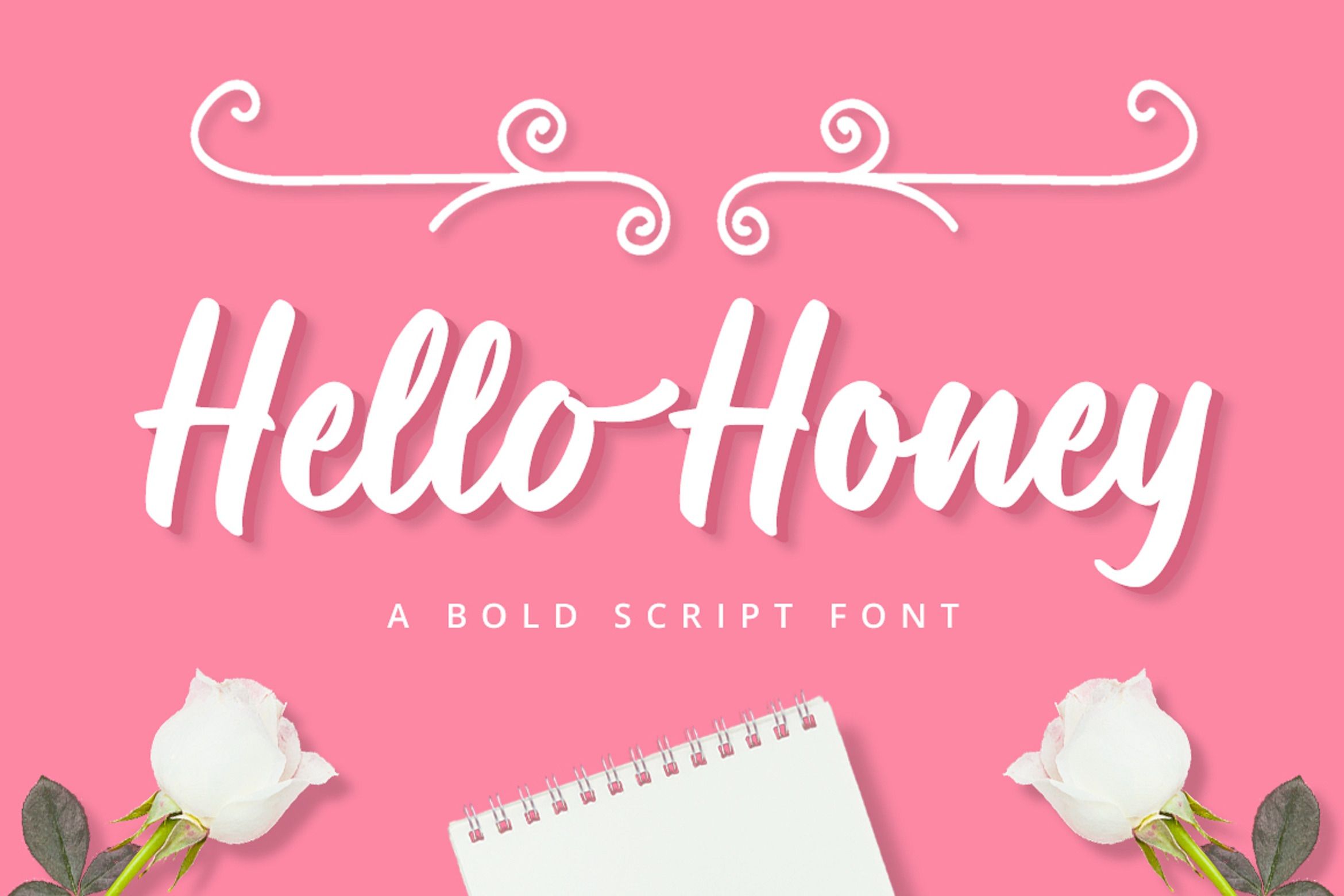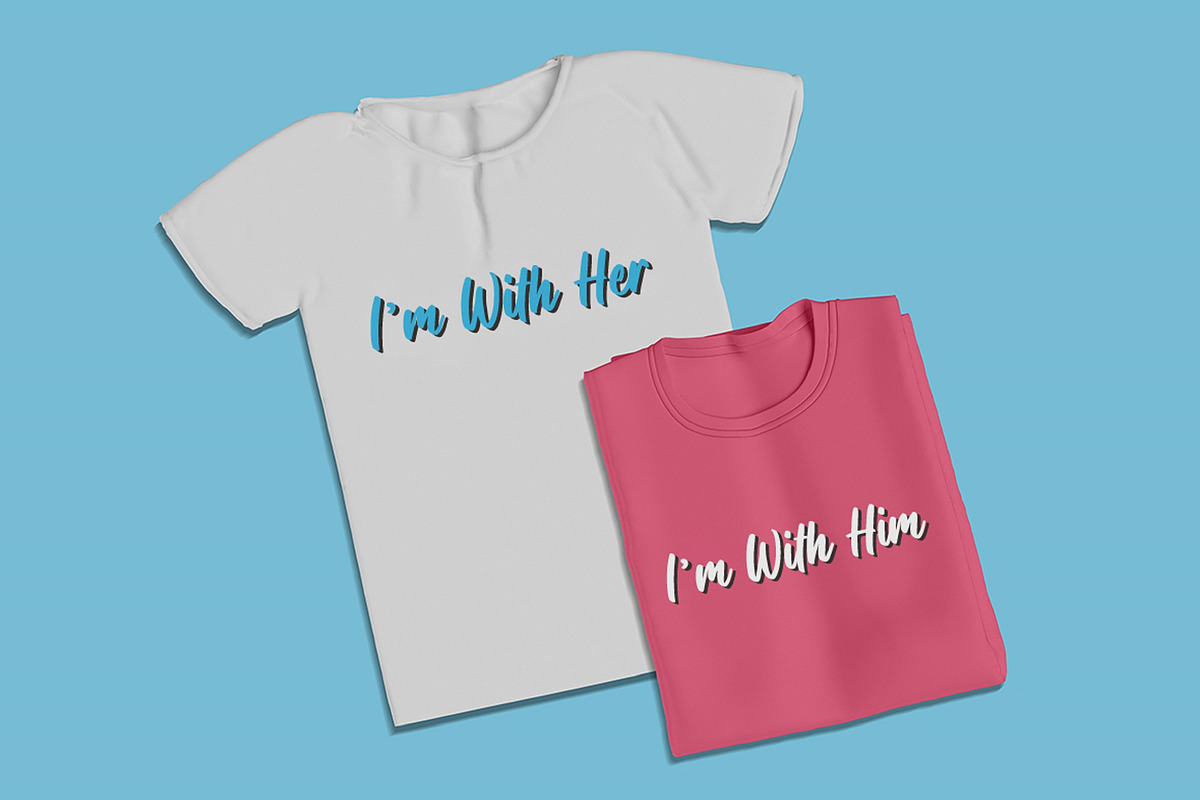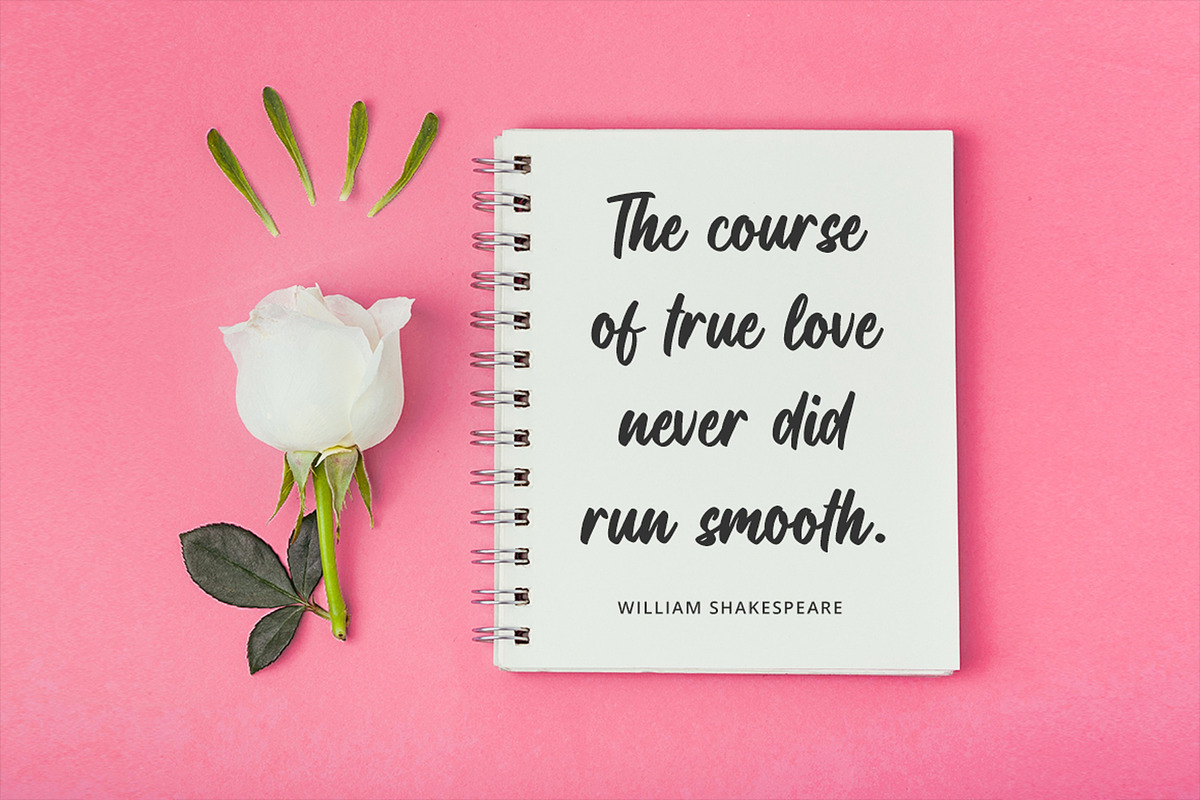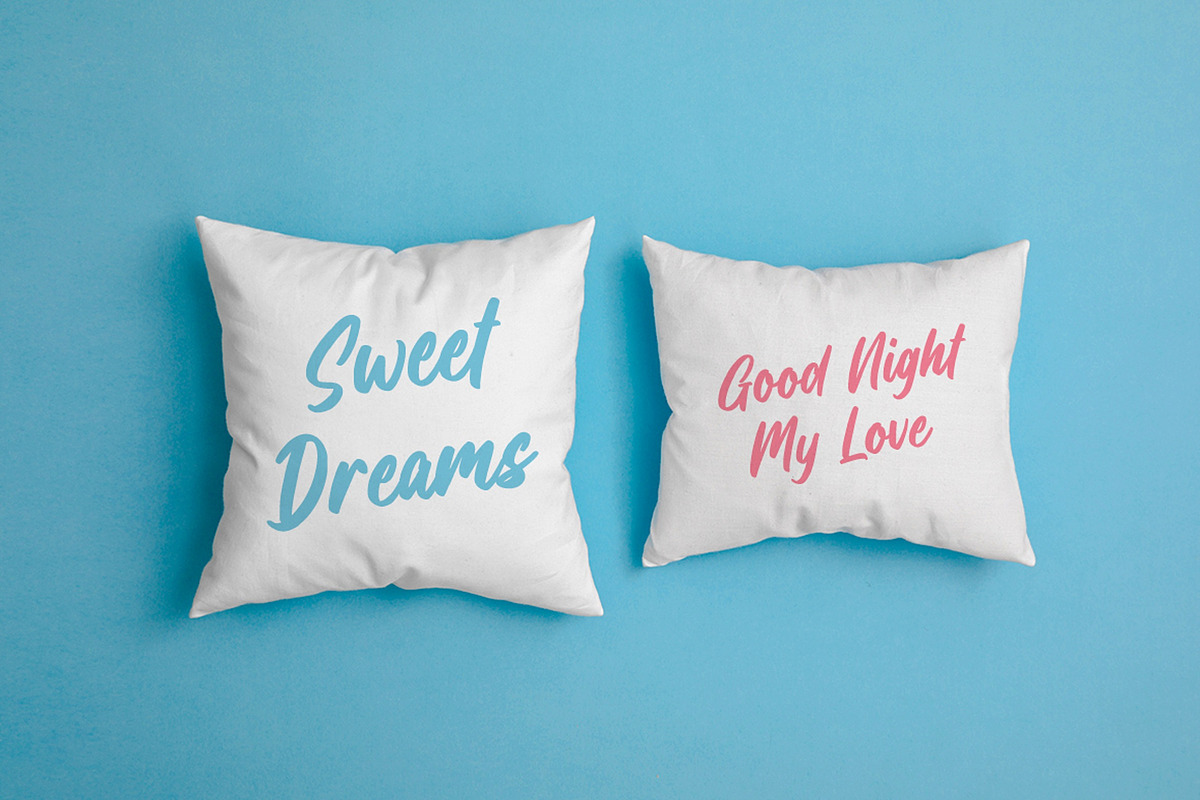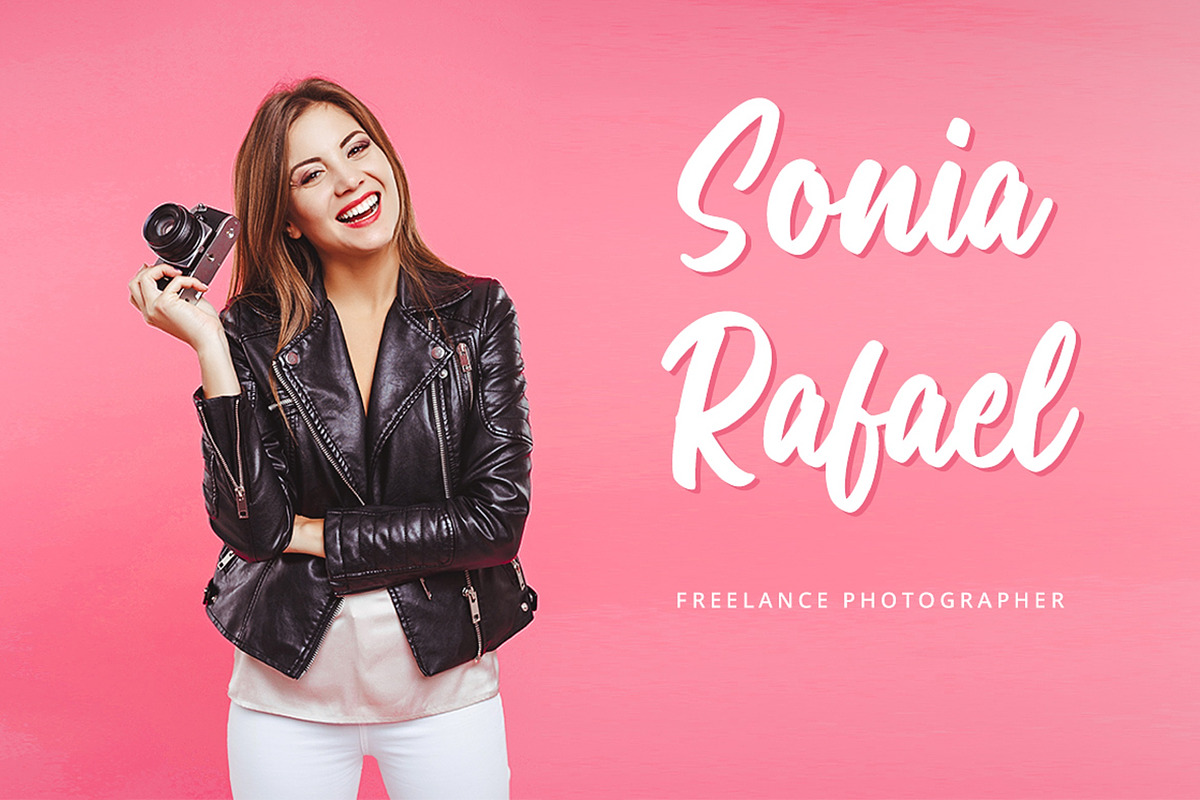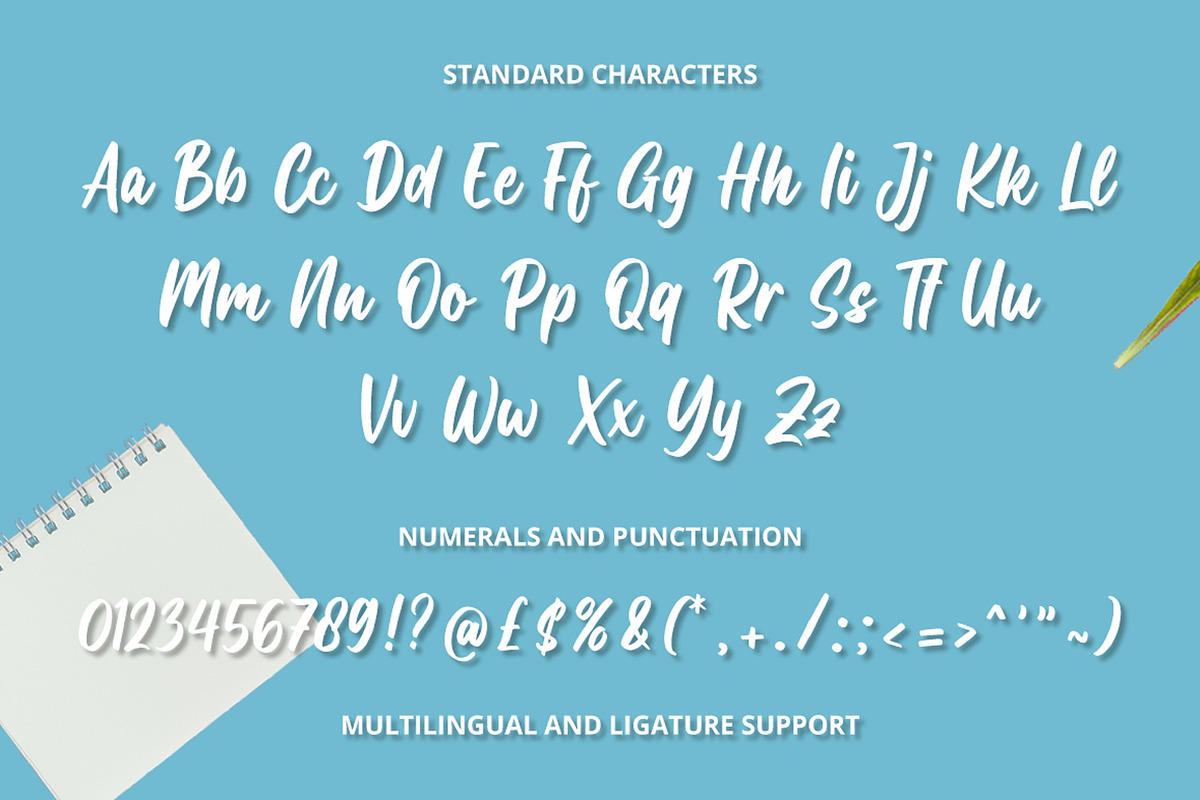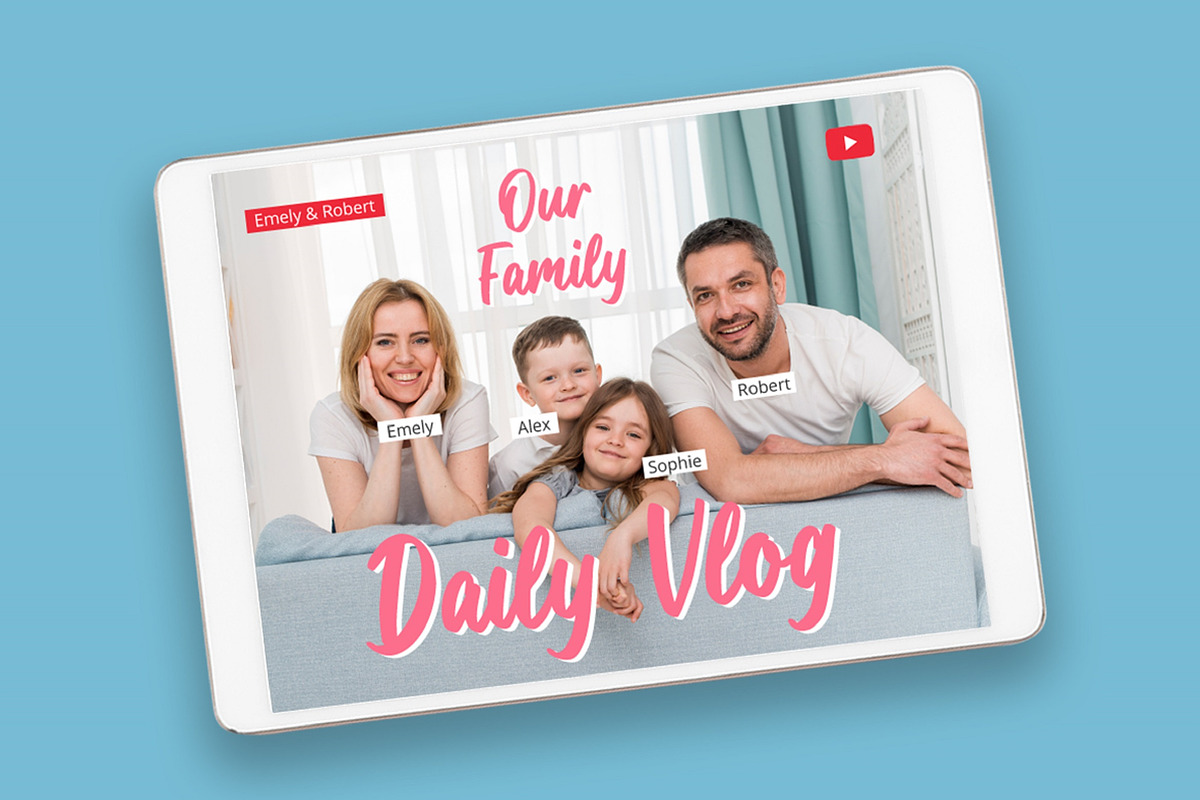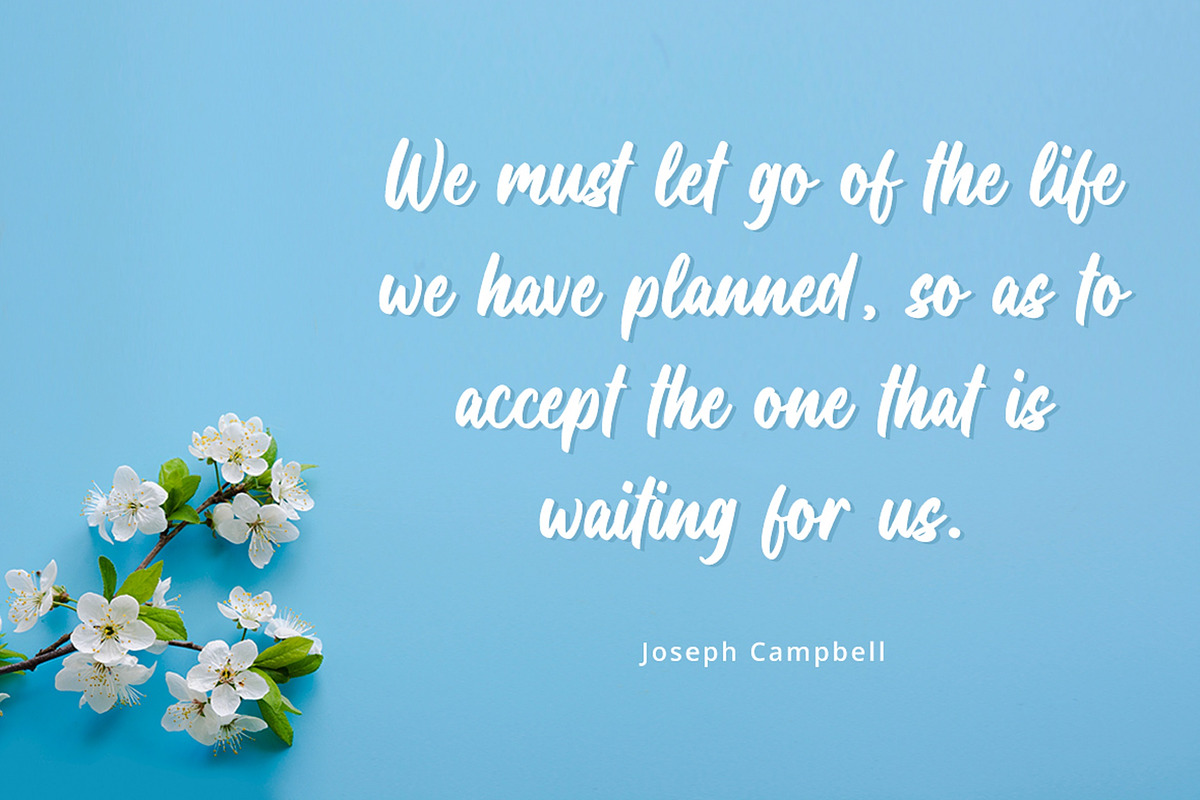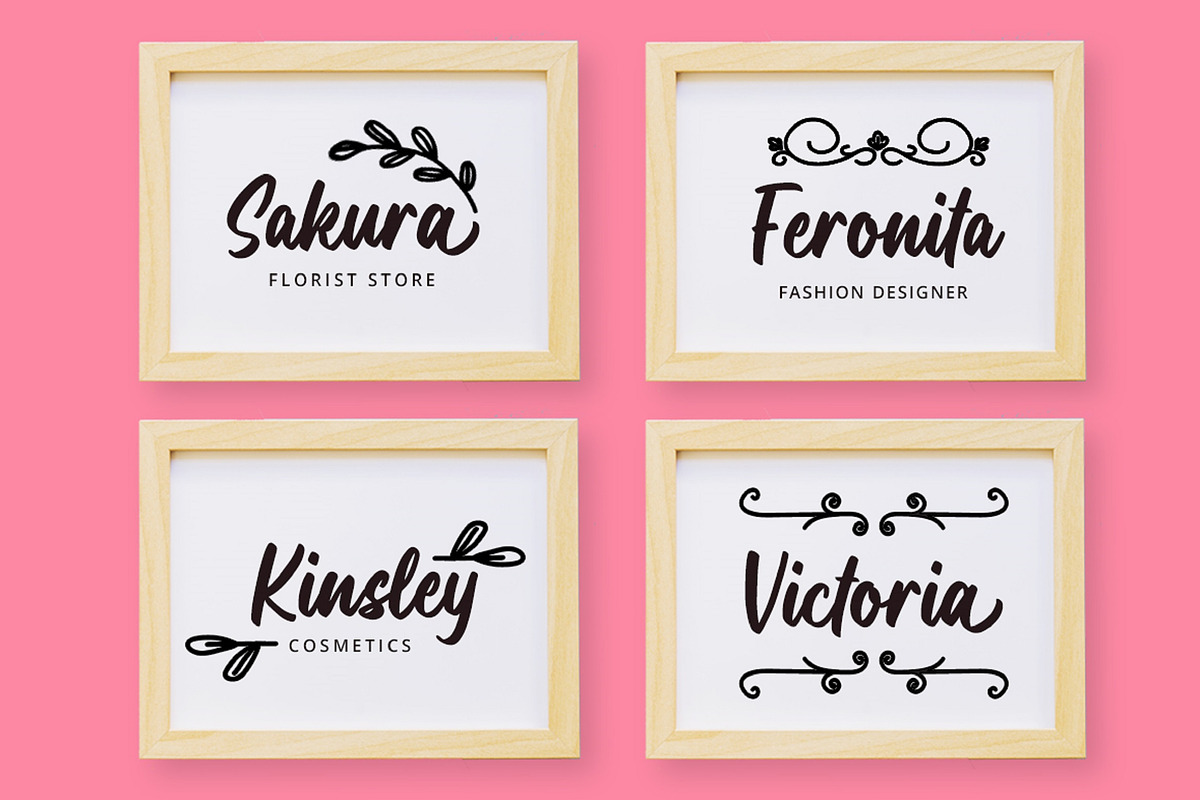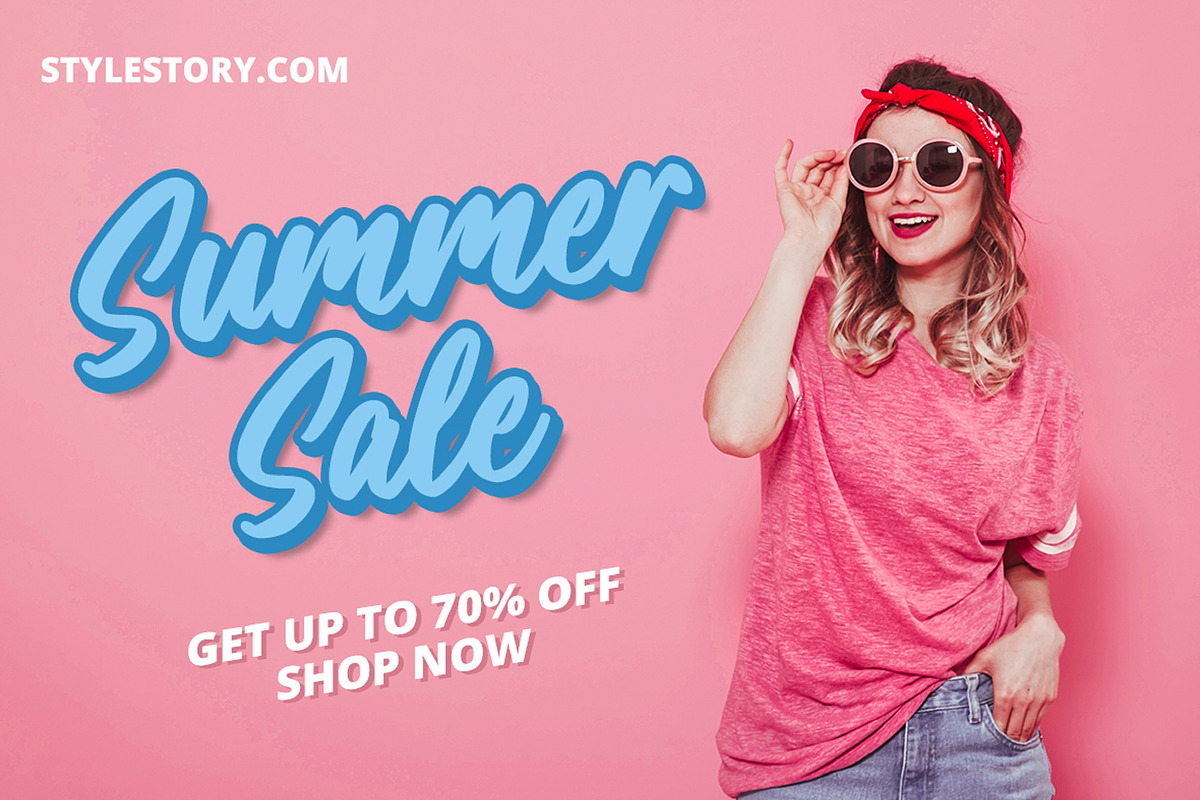
Script Font
Looking for a font that’ll make your branding sparkle? A versatile, modern, and happy font?
Introducing Hello Honey - A Bold Script Font.
This bold script font can be used for various different promotions or projects. Use it to create standout headings, promote your online sales, Instagram quotes, YouTube vlogs, and even printed materials like business cards, t-shirts, or invitations.
Get ready to attract your audience and make your branding bold with Hello Honey.
- Multilingual & Ligature Support
- Full sets of Punctuation and Numerals